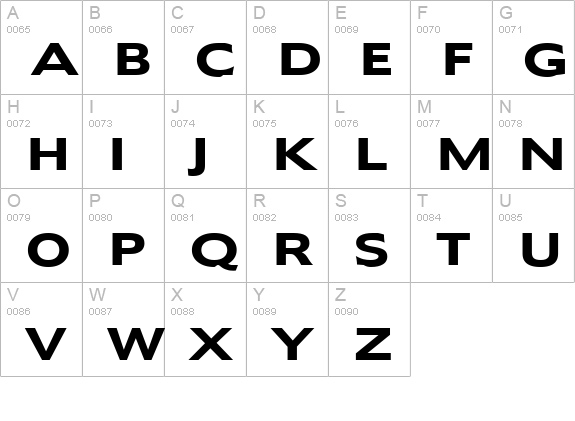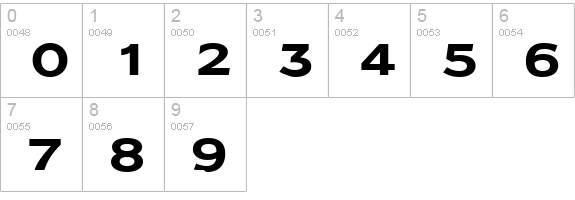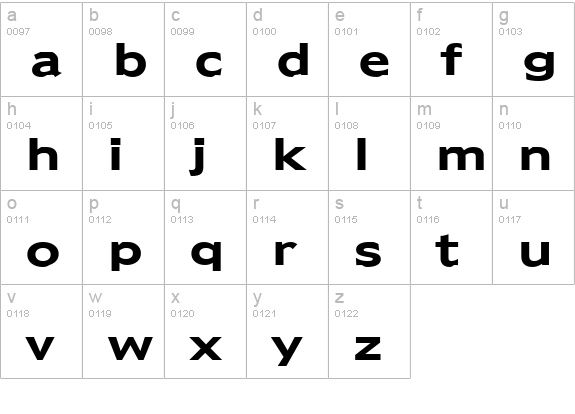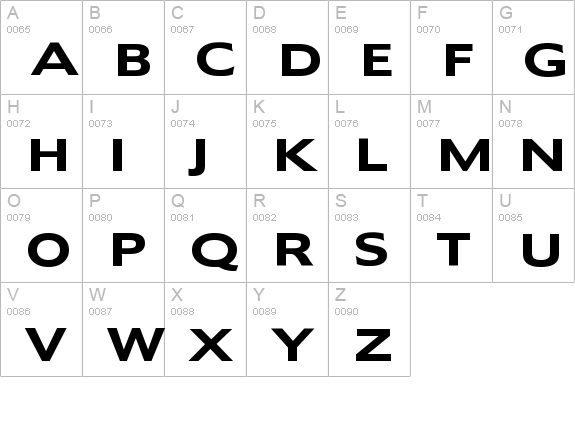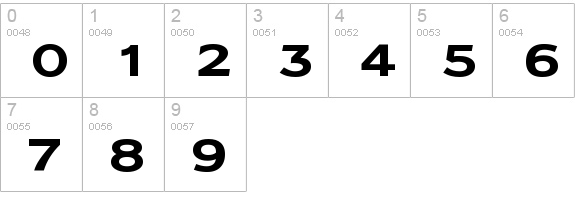
Adams Wide Bold is a strong, high-contrast, extended-width variant in the Adams typeface family \xE2\x80\x94 well suited to headlines, attention-grabbing titles, and strong calls-to-action.
Adams Wide Bold font is a versatile and striking typeface that exudes confidence and modernity. Its bold weight and wide proportions make it perfect for headlines, titles, and other display purposes where you want your text to stand out. The clean lines and strong presence of Adams Wide Bold make it a popular choice for designers looking to make a bold statement. The best part? Adams Wide Bold font is available for free download at FontsMarket.com. This means you can easily access this high-quality font without any cost, making it a valuable addition to your font library. Whether you're working on a branding project, poster design, or any other creative endeavor, Adams Wide Bold font is sure to make a bold impact. Download it today and elevate your designs with this stylish and modern typeface.